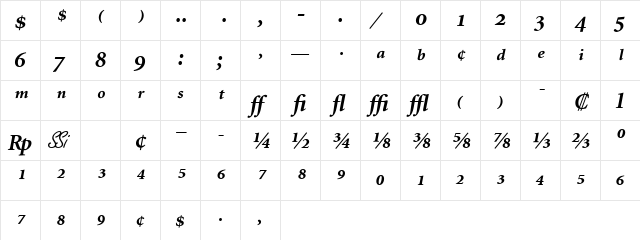
Atlantix Pro Black SSi Bold Italic Font Preview
Design Context for Atlantix Pro Black SSi Typeface
Atlantix Pro Black SSi offers clean, dependable letterforms without strong stylistic allegiance, making it a practical choice for designers who need flexibility. The dynamic lean of this cut emphasises speed and emphasis in any layout. The heavy weight commands attention and anchors typographic hierarchies.
Pro Tip: Use Atlantix Pro Black SSi for emphasis, pull quotes, and subheadings where its slanted energy can add rhythm to the layout.